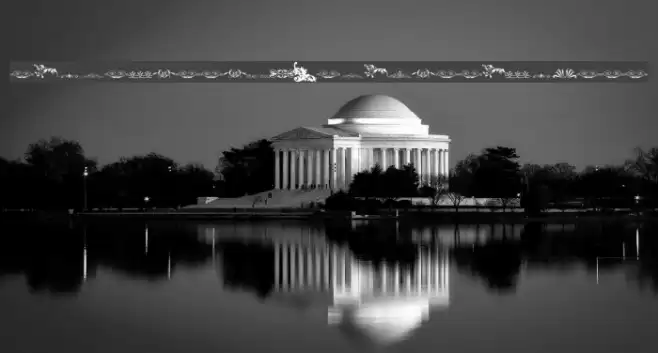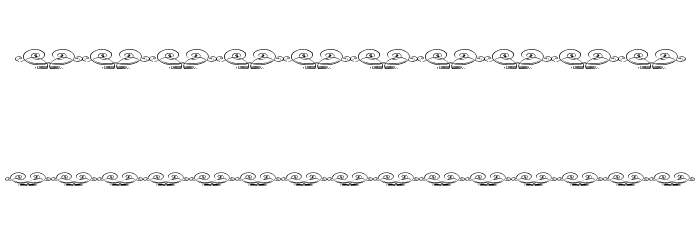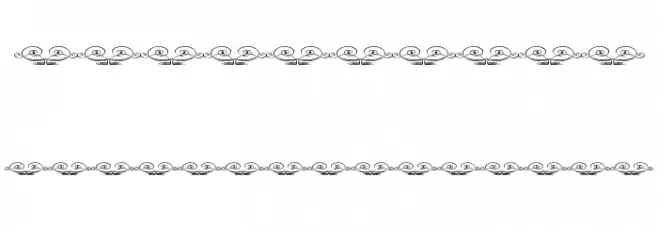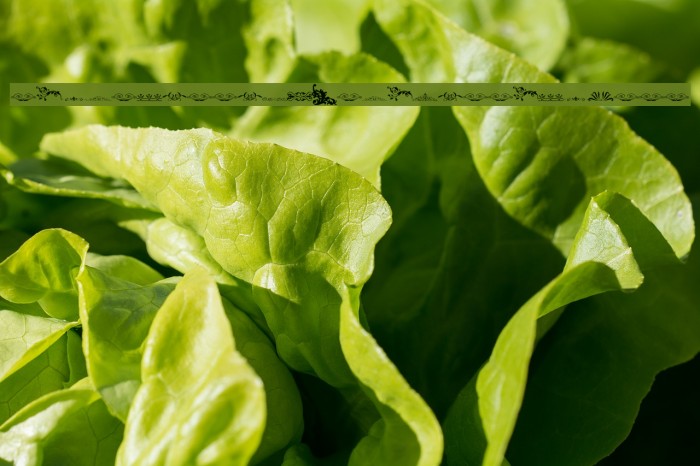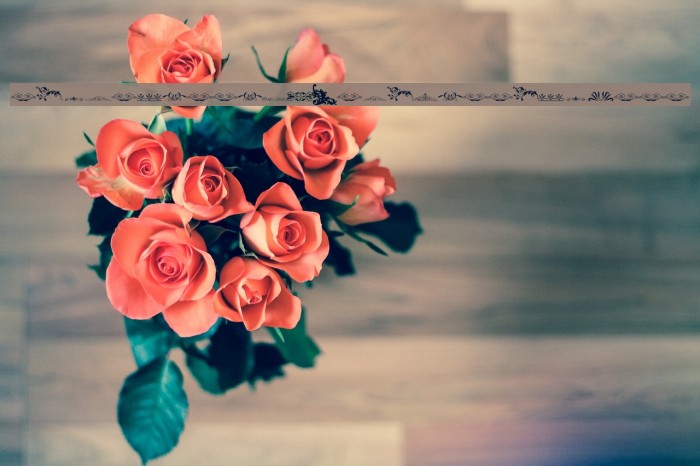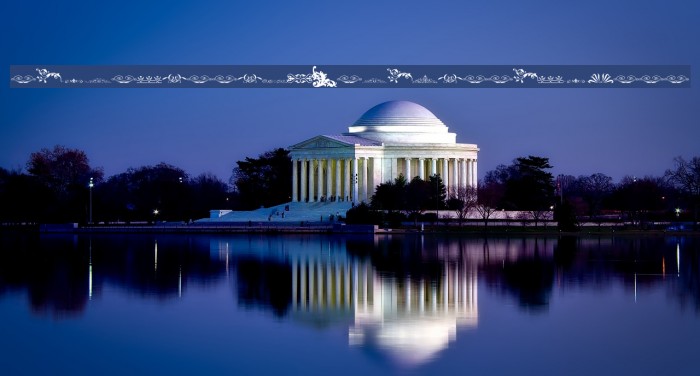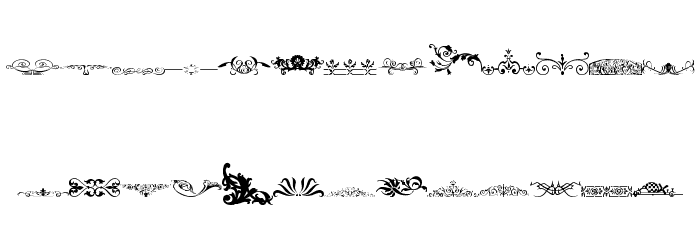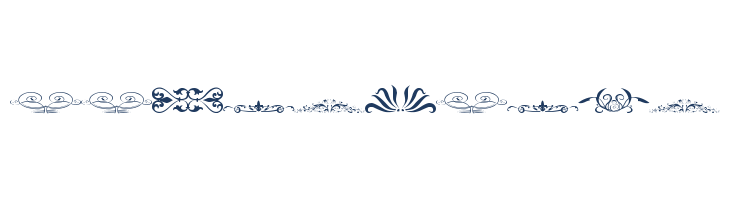
Vintage Decorative Signs 14 Font
Vintage Decorative Signs 14 Description
A collection of ornate, vintage-inspired decorative borders featuring intricate swirls, flourishes, and symmetrical motifs, reminiscent of classic sign painting and ornamental engraving.
Ornate vintage decorative border designs with intricate flourishes from Uncategorized fonts.
- Proposed Projects: Wedding invitations, certificates, vintage posters, signage, decorative frames, event programs.
- Overall Style: Vintage, Decorative
- Use Case: Borders, Frames, Decorative accents